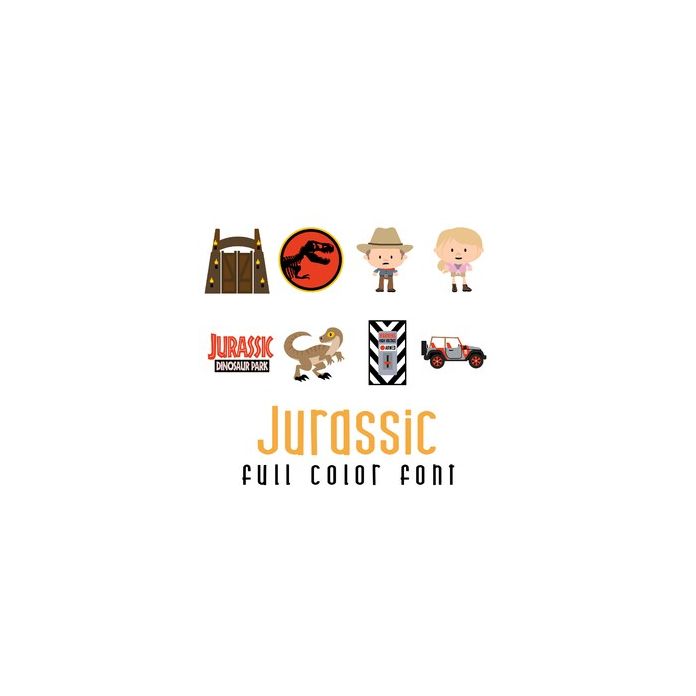
This adorable full color doodlebat font features dinosaurs, scientists, paleontolgists and more. Perfect for cards, crafts, gifts, decor, scrap book pages, planner stickers and more!